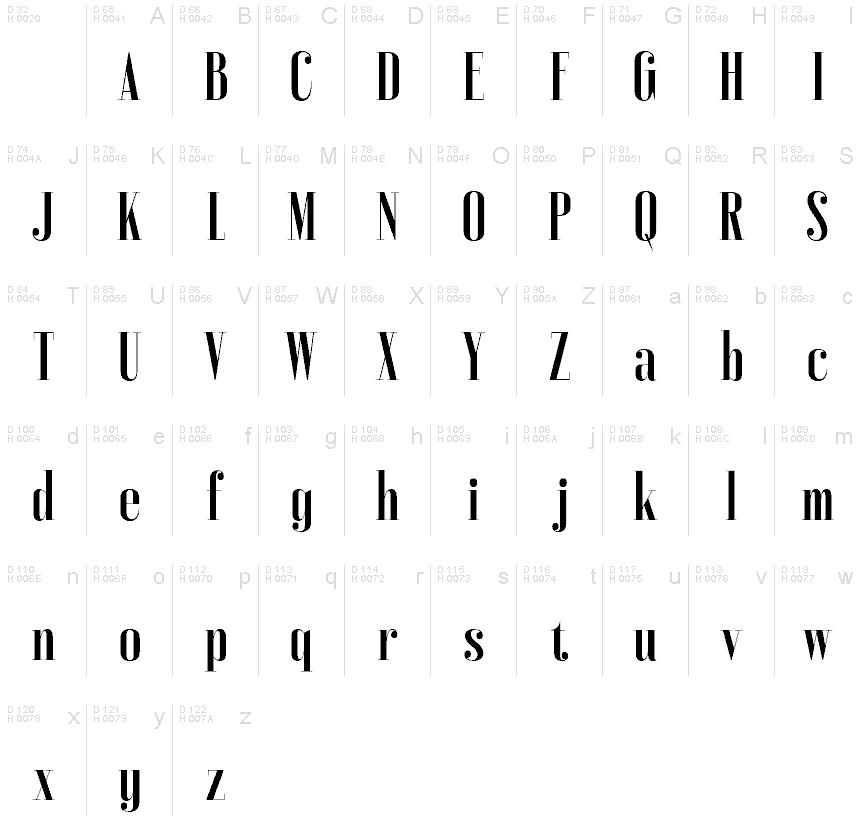
CS Diploma Regular Demo
CS Diploma font by Craft Supply Co. is a condensed serif font that holds a sophisticated style and elegant aesthetic. Its straight bold lines are beautifully contrasted with sleek gentle curves for added character, as its contemporary appeal is guaranteed to turn heads. Users will find subtle yet enchanting details that build an impeccable design from one character to the next.
A sleek typeface designed for diplomas needs, notebook covers, or certificates has now become part of your own collection so you can include CS Diploma with magazine covers, headlines, and other briefs in mind. Its stylish presentation also suits apparel items created for both men and women like t-shirts or wool sweaters as well as modern poster ideas or billboards for your brands!